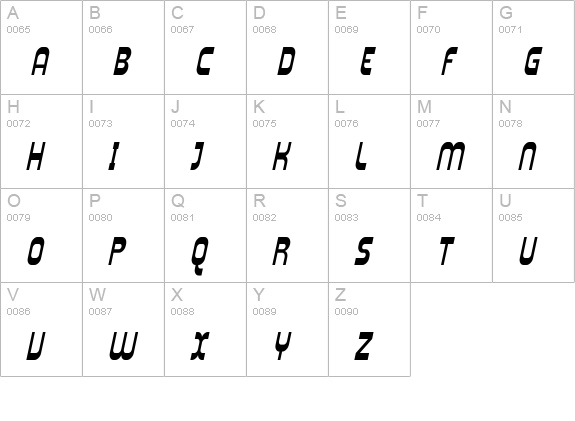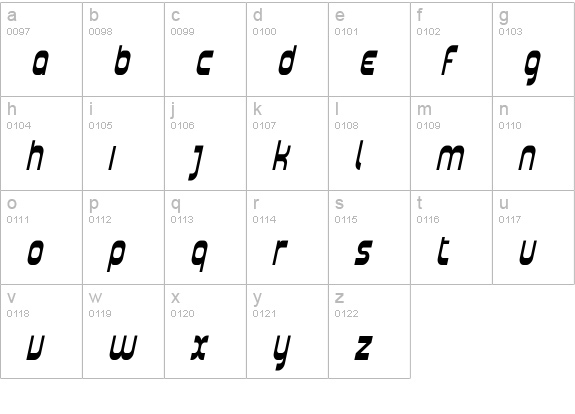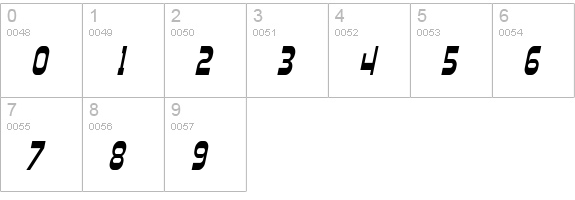
Plasmatica Cond Italic is a distinctive, condensed-width, italic variant in the Plasmatica typeface family \xE2\x80\x94 well suited to design and typography projects.
Plasmatica Cond Italic font is a stunning display font that effortlessly combines elegance and modernity. Its sleek and sophisticated design makes it perfect for a wide range of projects, from logos to headlines and everything in between. The italicized slant adds a touch of dynamism and flair, making your text stand out with a sense of motion and energy. This font is not only visually captivating but also highly versatile. Its condensed form allows for efficient use of space, making it ideal for projects that require fitting a lot of text in a limited area. Whether you're designing a magazine layout, creating a website, or crafting an eye-catching poster, Plasmatica Cond Italic font will help you achieve a polished and professional look. And the best part? Plasmatica Cond Italic font is available for free download at FontsMarket.com. Yes, you read that right - this exquisite font can be yours without having to spend a single penny. FontsMarket.com is a trusted source for high-quality fonts, and their commitment to providing free access to Plasmatica Cond Italic font showcases their dedication to supporting designers and creatives. So why wait? Elevate your designs with Plasmatica Cond Italic font today. Download it for free at FontsMarket.com and experience the power of this exceptional typeface. Unleash your creativity and let Plasmatica Cond Italic font take your projects to new heights.